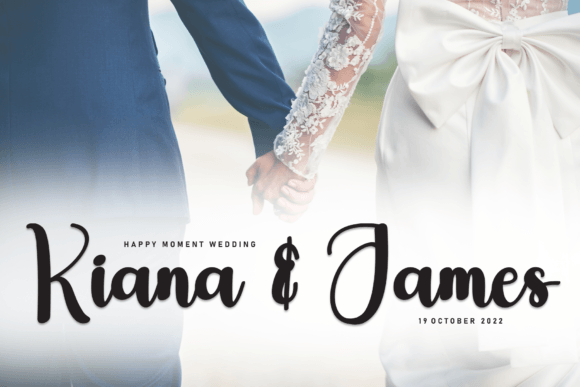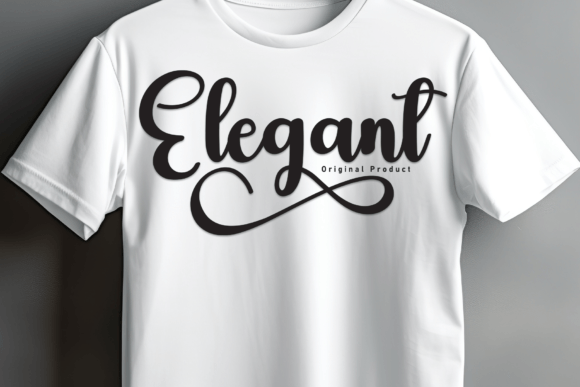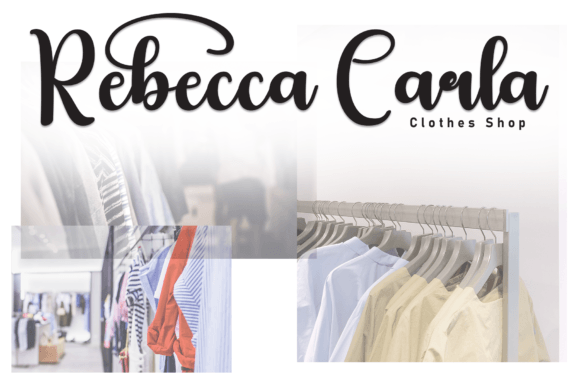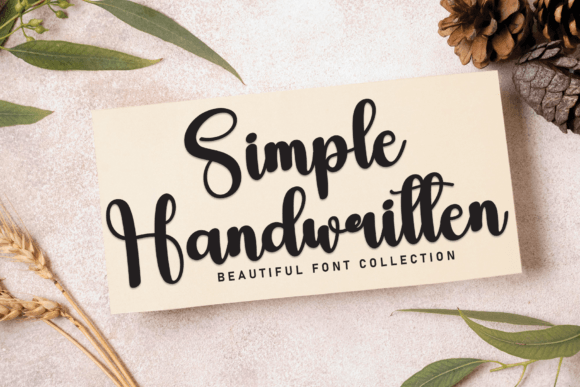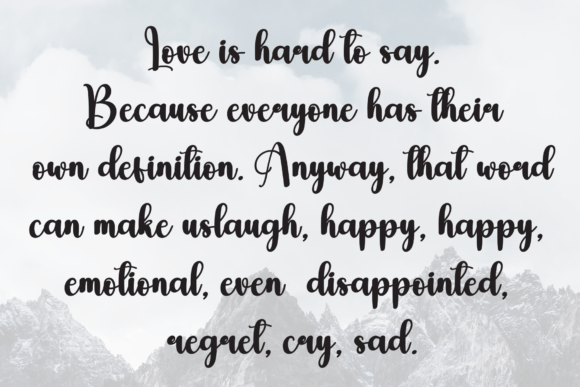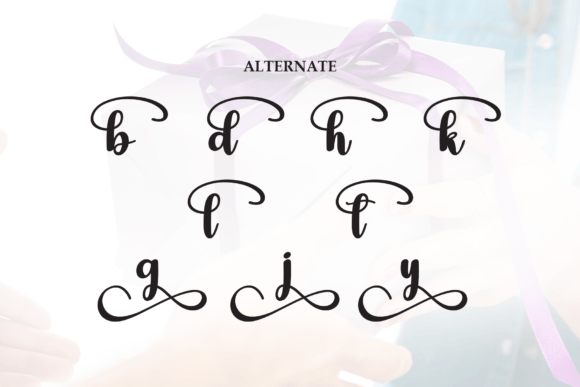
The Sweet Getgift Font: A Designer’s New Best Friend
I’ll never forget the time I was working on a wedding invitation project, and my client asked for a font that was “fun, yet elegant.” I scoured the internet, tried out dozens of fonts, but nothing seemed quite right. That was until I stumbled upon the Getgift font. This sweet and friendly handwritten display font has since become a staple in my design toolkit, and I’m excited to share it with you! 🎉
An Honest Review of Getgift Font
- ✅ The playful, cursive script is perfect for adding a touch of whimsy to any design
- ✅ The font is highly legible, even at smaller sizes
- ✅ It’s versatile enough to work for a wide range of projects, from wedding invites to social media graphics
- ✅ The font comes with a range of OpenType features, including glyphs and stylistic alternates
- ⚠️ Some of the letters may appear a bit too connected, which can make it difficult to read at very small sizes
- ⚠️ The font may not be the best choice for body text, as it’s more suited for display purposes
The Backstory Behind Getgift Font
Getgift was designed by a talented font creator who wanted to craft a font that was both fun and elegant. Inspired by the world of handwritten lettering, Getgift is the perfect blend of playfulness and sophistication. Whether you’re designing wedding invitations or social media graphics, Getgift is sure to bring a touch of personality to your work.
Q: What type of projects is Getgift best suited for?
A: Getgift is perfect for projects that require a touch of whimsy and elegance, such as wedding invitations, social media graphics, and posters.
Q: Does Getgift come with any OpenType features?
A: Yes, Getgift comes with a range of OpenType features, including glyphs and stylistic alternates.
Q: Is Getgift easy to read?
A: Yes, Getgift is highly legible, even at smaller sizes, making it perfect for a wide range of design applications.